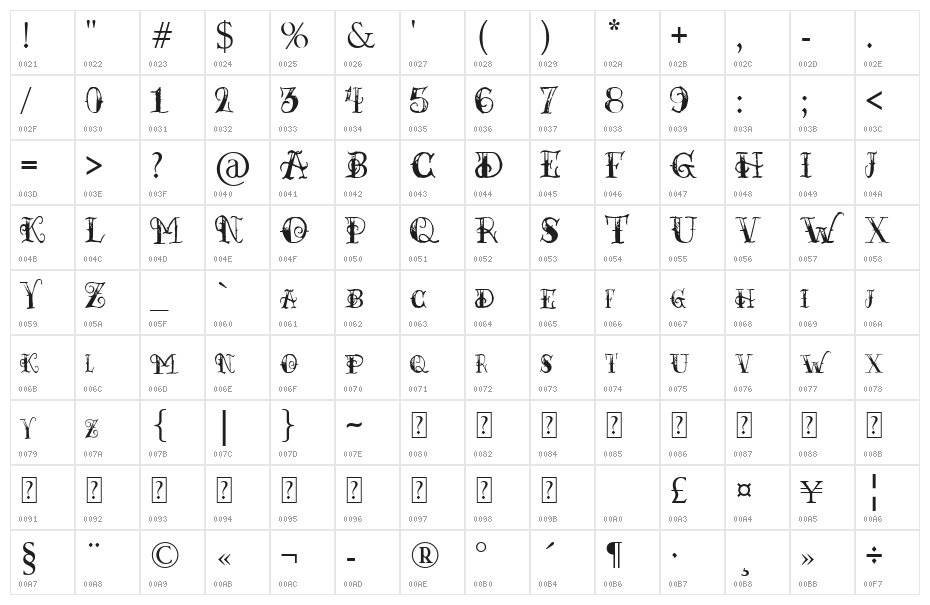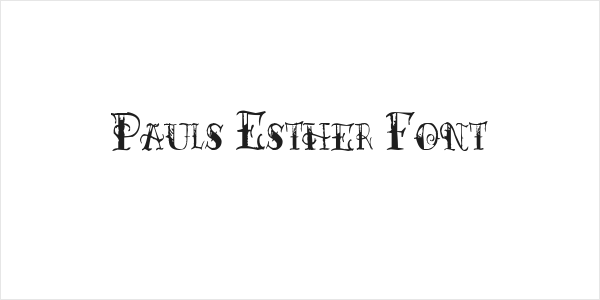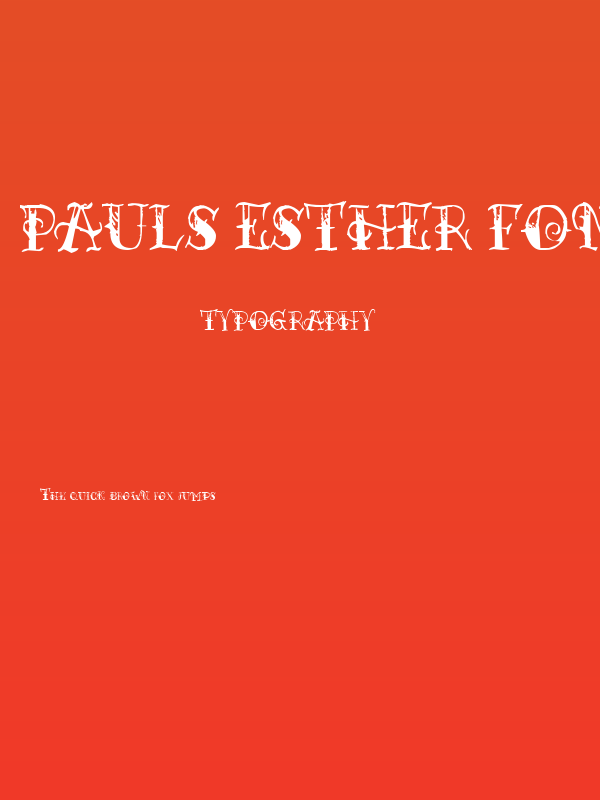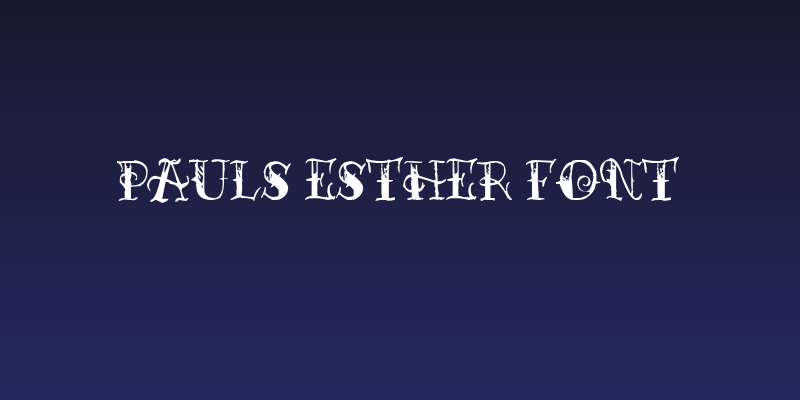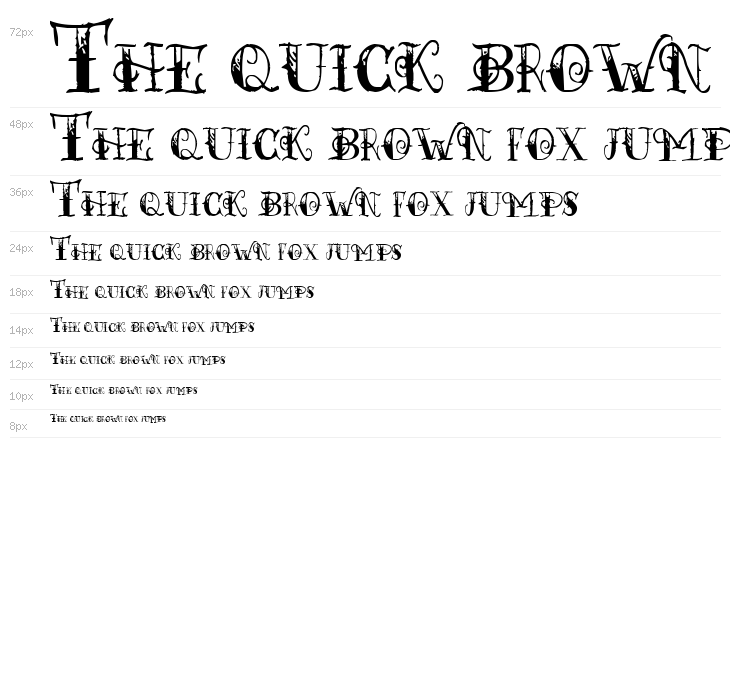
Pauls Esther Font Font
Pauls Esther Font Description
This font features an intricate and decorative design with a gothic flair. Each character is adorned with elaborate flourishes and embellishments, giving it a unique and artistic appearance. The letters are bold and striking, with a high contrast between thick and thin strokes. The overall style is reminiscent of vintage calligraphy, making it suitable for projects that require a dramatic and eye-catching typeface. The font's ornate details make it ideal for use in headlines, logos, and other creative applications where a touch of elegance and sophistication is desired.
| Overall Style | Gothic, Vintage, Decorative |
| Use Case | Headlines, Logos, Creative Designs |
| Proposed Projects | Ideal for vintage-themed designs, gothic art projects, dramatic headlines, and elegant branding. |